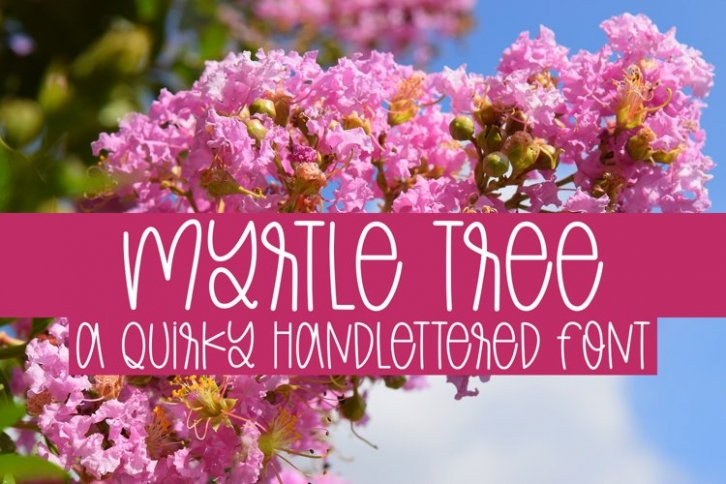
MyrtleTree is a gorgeous font that was realeased on March 13, 2022. The font can be used in many style contexts and design environments. Perfect for invitations, magazines, websites, logos, and more! It was designed by plusstore and the file size is 13.44 MB. Thanks for checking out this font!